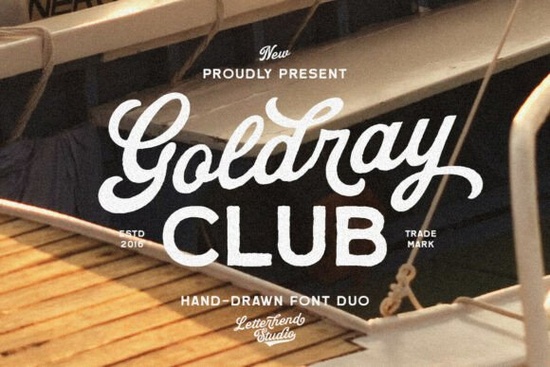
If you're looking for a font that feels both effortless and intentional, Goldray Club Font delivers exactly that. It blends a soft, hand-drawn script with a clean, modern sans-serif creating a look that’s warm, readable, and just a little nostalgic. Whether you’re designing a logo, packaging, or a poster, this duo works naturally together, giving your project personality without sacrificing clarity.
What makes Goldray Club Font stand out?
It’s not just the mix of styles it’s how they work together. The script part has a relaxed, flowing rhythm, like handwriting on a postcard from a summer road trip. Meanwhile, the sans-serif counterpart keeps things tidy and professional. You get that handmade feel but with the structure needed for branding or print projects.
The retro vibe comes through subtly think vintage travel posters, old-school diner signs, or classic surf culture aesthetics. It’s not loud or over-the-top; it’s the kind of font that feels familiar, like something you’ve seen before but can’t quite place.
Where can I use Goldray Club Font?
This font is great for a range of creative needs:
- Logos and brand identities – especially for cafes, boutiques, or lifestyle brands wanting a friendly, approachable image.
- Packaging design – perfect for food labels, gift boxes, or handmade product wraps.
- Posters and event flyers – ideal for music events, art shows, or local gatherings with a laid-back feel.
- Print-on-demand items – think mugs, T-shirts, or tote bags with a nostalgic or travel-inspired message.
It also pairs well with other fonts in your collection. For example, try combining it with a simple serif or monospace typeface to add contrast while keeping the overall design balanced.
How does it compare to similar fonts?
If you’ve explored script fonts like OneLiner, Spiky, or Ophelia Story, you’ll notice Goldray Club sits somewhere in between: less dramatic than Spiky, less formal than Ophelia Story, and more consistent than OneLiner. It’s built for everyday use not just for one-off designs, but for repeated branding elements.
For those who love travel-themed visuals, it shares a vibe with Wishlist Travel, but with a more refined, polished edge. It doesn’t shout “retro” it whispers it, which often works better in modern design.
Why designers are choosing Goldray Club Font
One of the biggest wins? Readability. Even when used at smaller sizes or in longer text blocks, the clean sans-serif companion helps keep things legible. That’s not always true with script fonts, which can become hard to read if not paired carefully.
Plus, it’s versatile across formats works great on digital screens, social media graphics, and printed materials alike. No matter where your design ends up, Goldray Club holds its own.
Final thoughts: Is it right for your next project?
If you want a font that feels personal, easy to use, and adaptable across different design types especially ones with a cozy, retro, or travel-inspired tone Goldray Club Font is worth adding to your toolkit.
It’s not flashy, but it’s reliable. It doesn’t demand attention, yet it stands out when it matters. And for creatives who value warmth and simplicity in their work, it’s a quiet favorite.